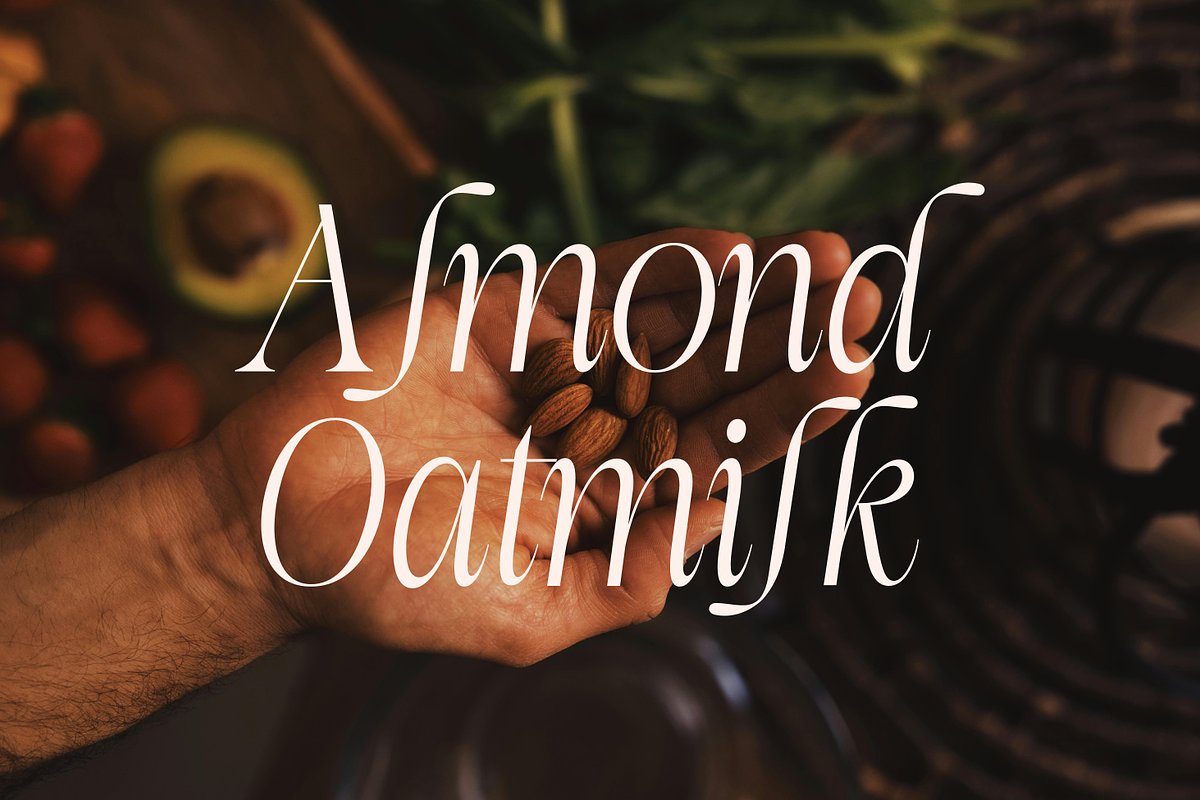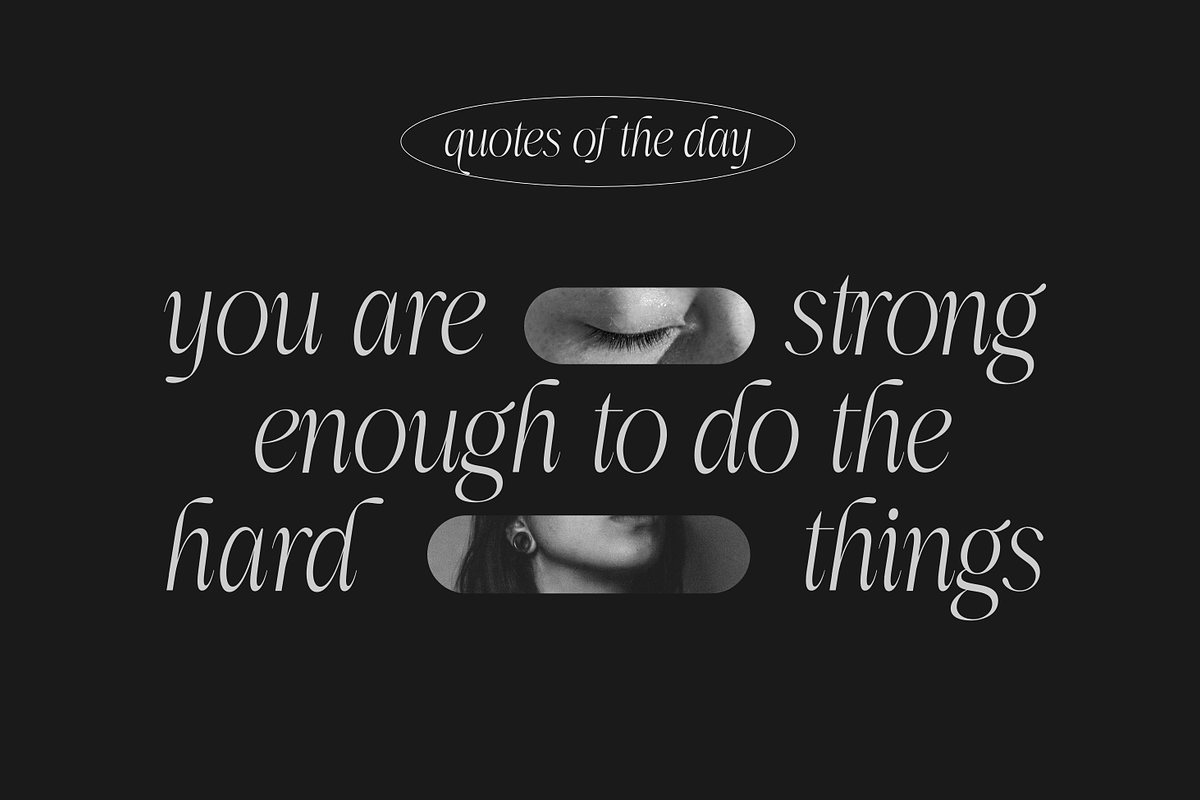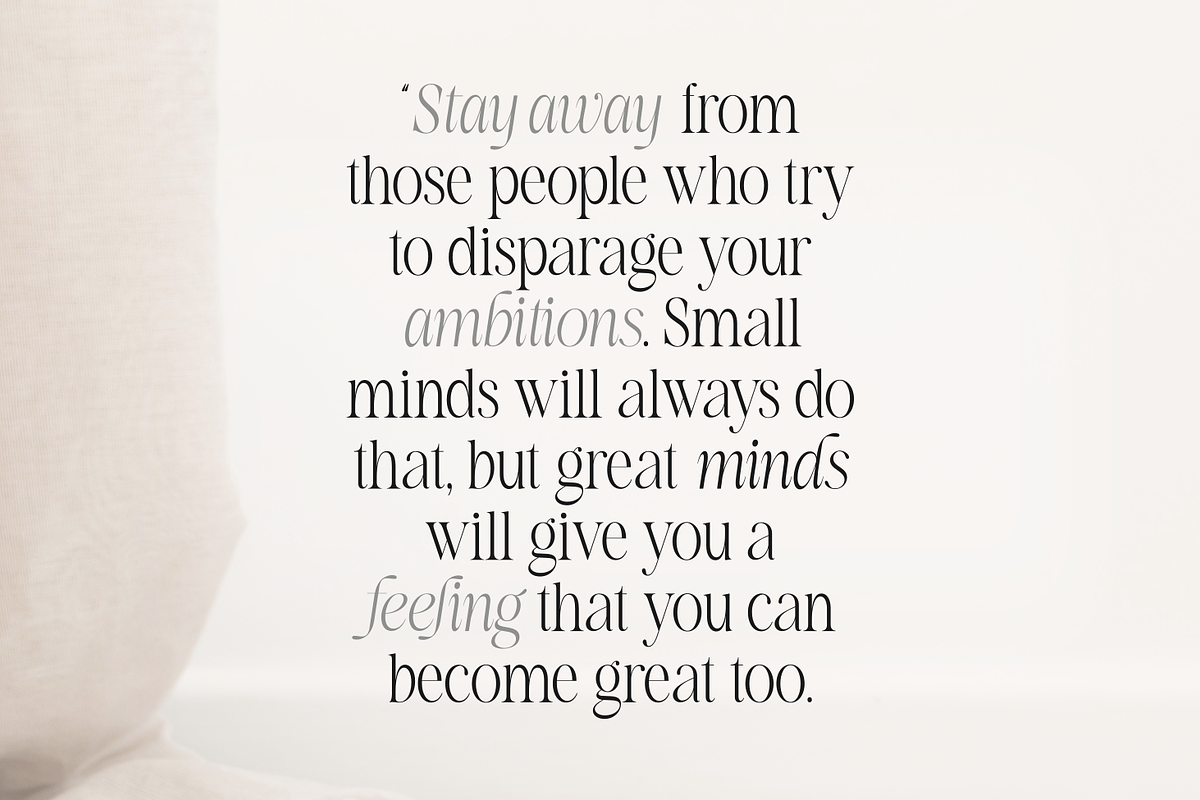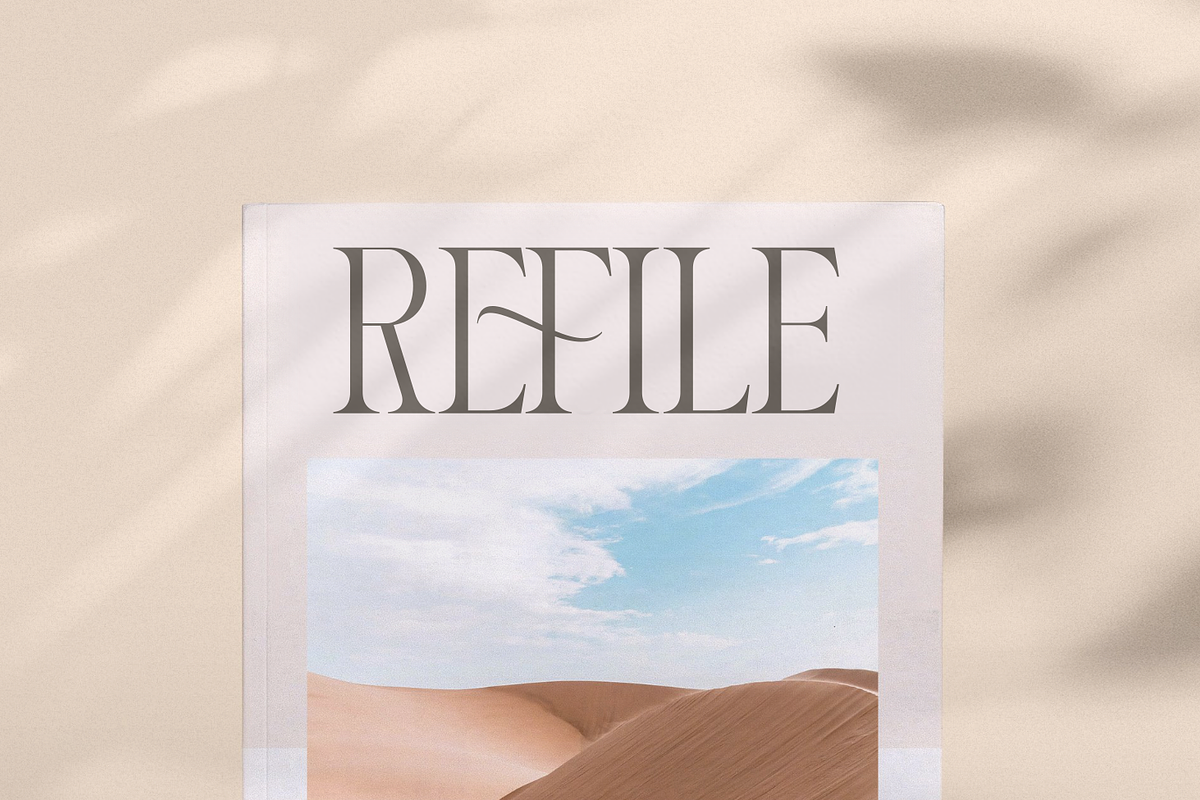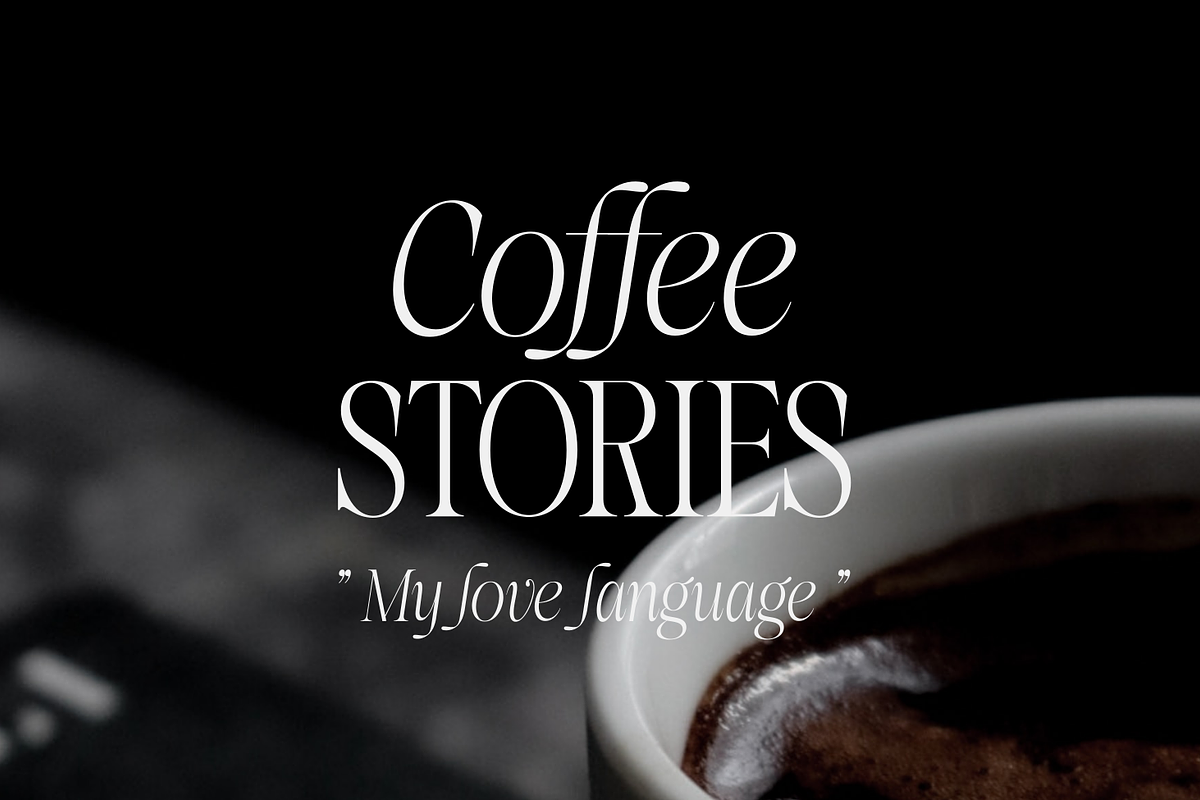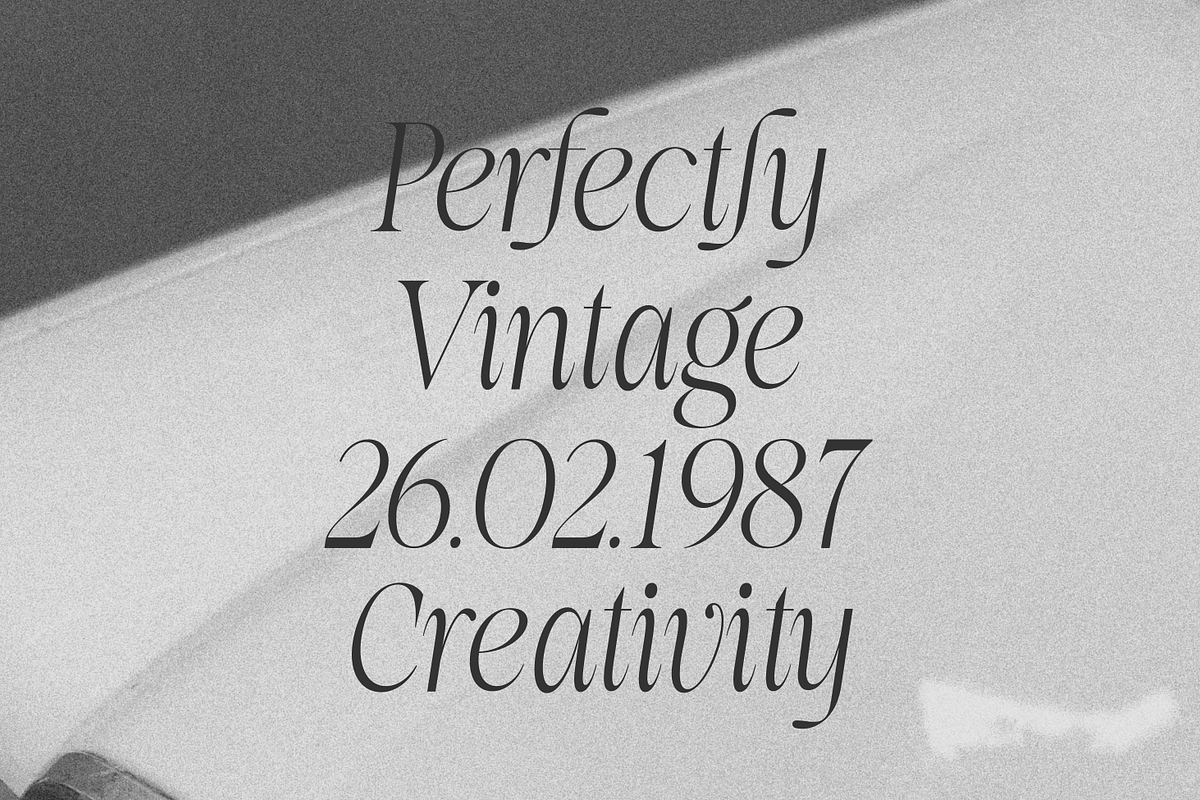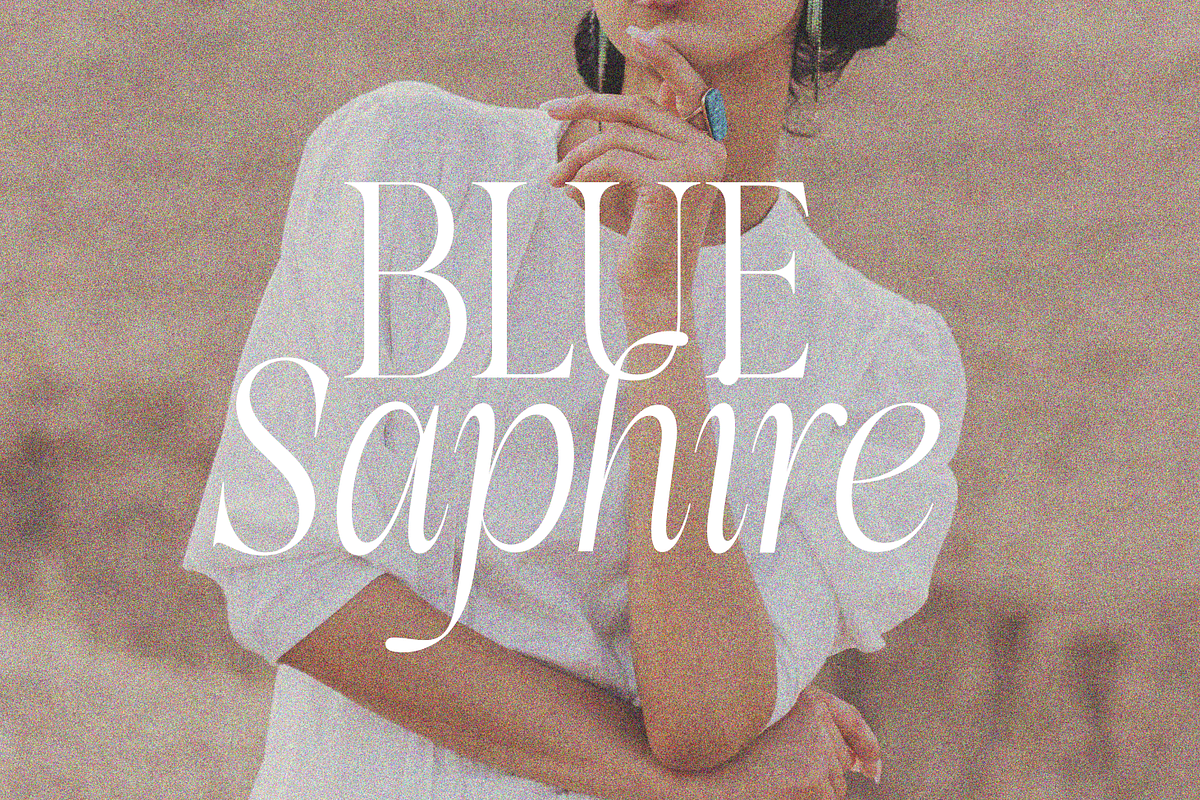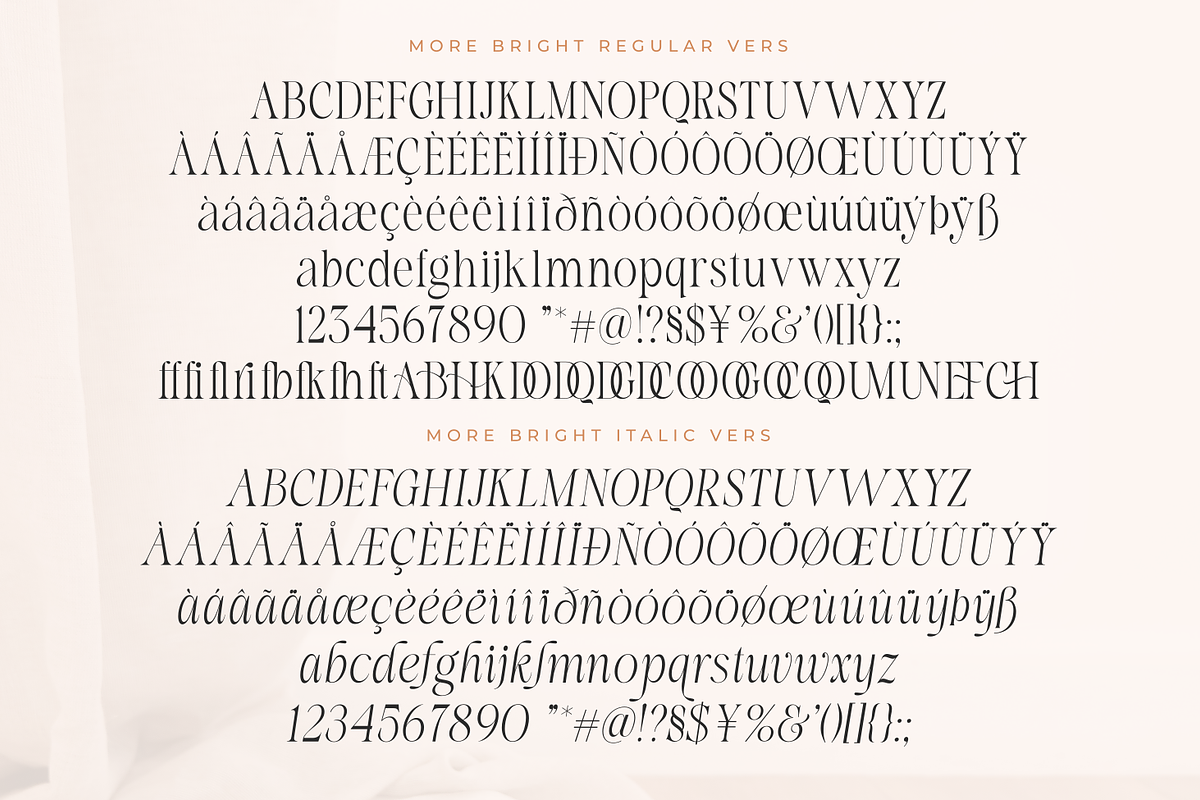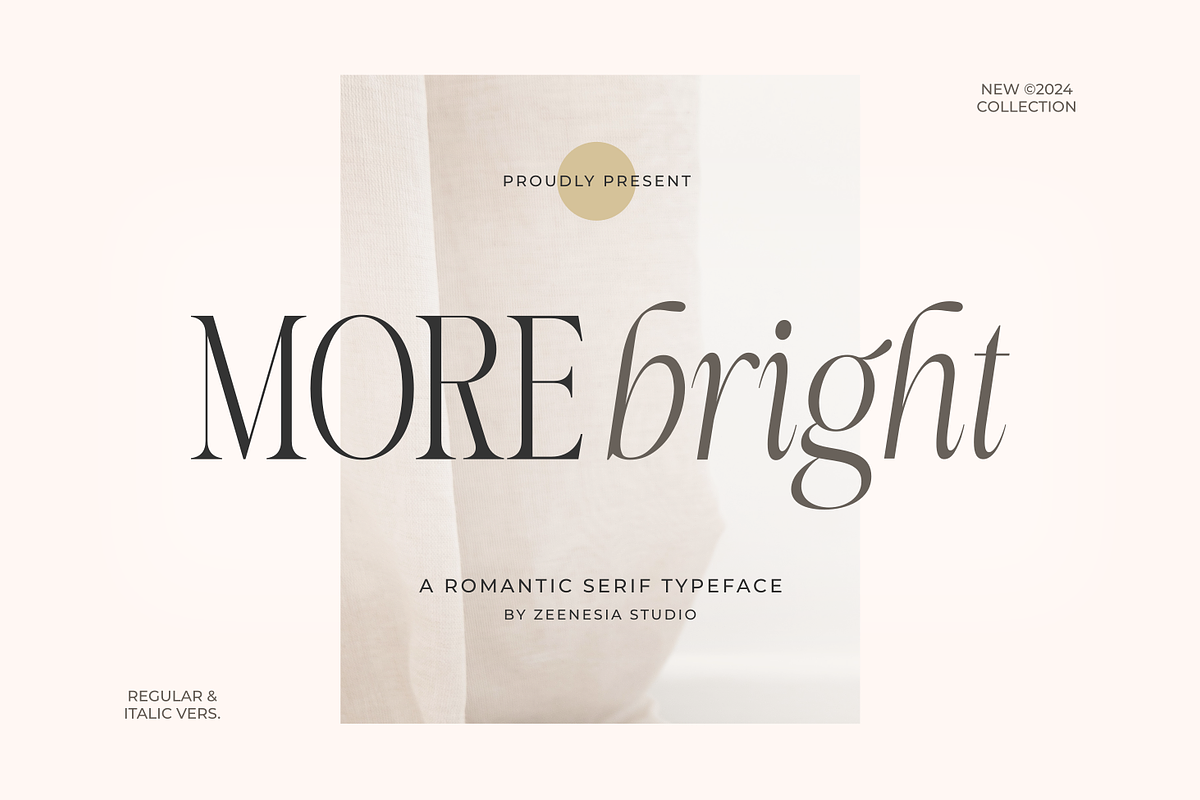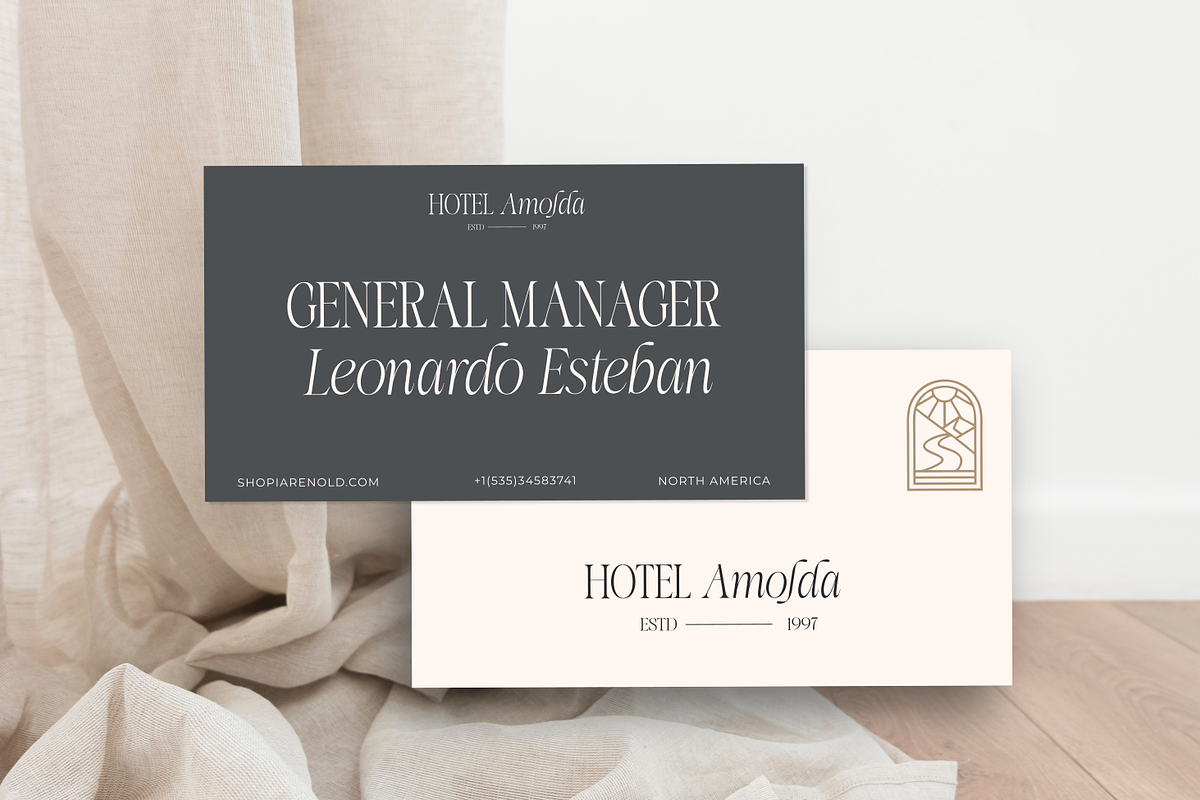
More Bright Serif Duo
Introducing More Bright. More Bright is a an elegant and smooth combine typeface regular and italic serif font. It’s a very versatile font that works great in large. Stylistic Alternate and Ligature makes your project will be perfect. More Bright Perfect for editorial projects, Logo design, web font, branding, product packaging, magazine , or simply as a stylish text overlay to any background image. This font is PUA encoded, which means you can access all of the glyphs and swashes with ease!